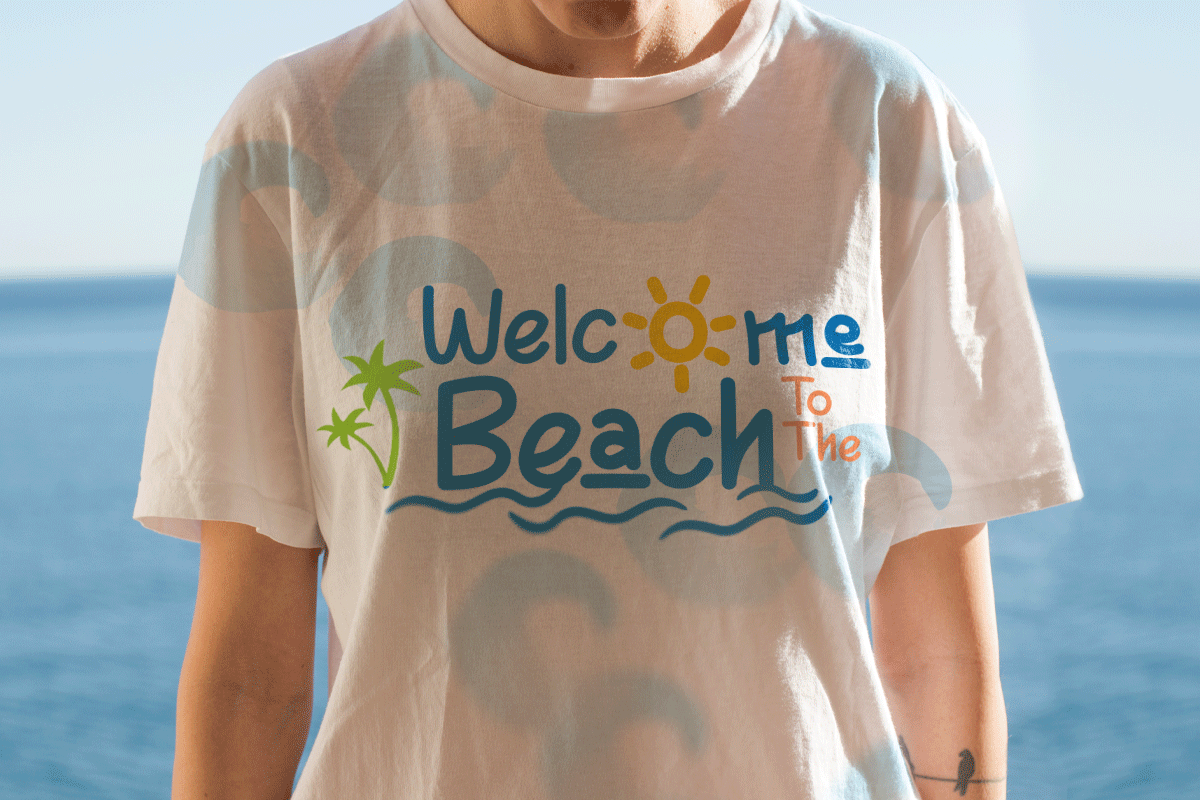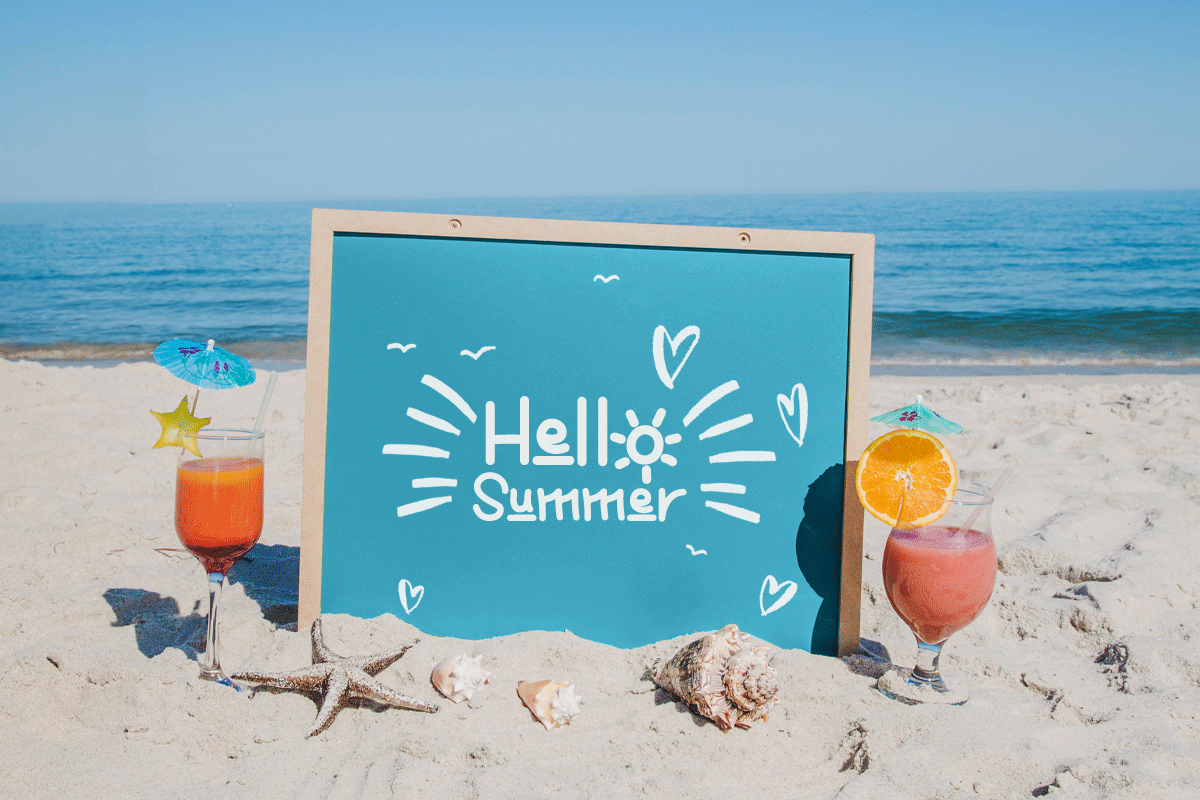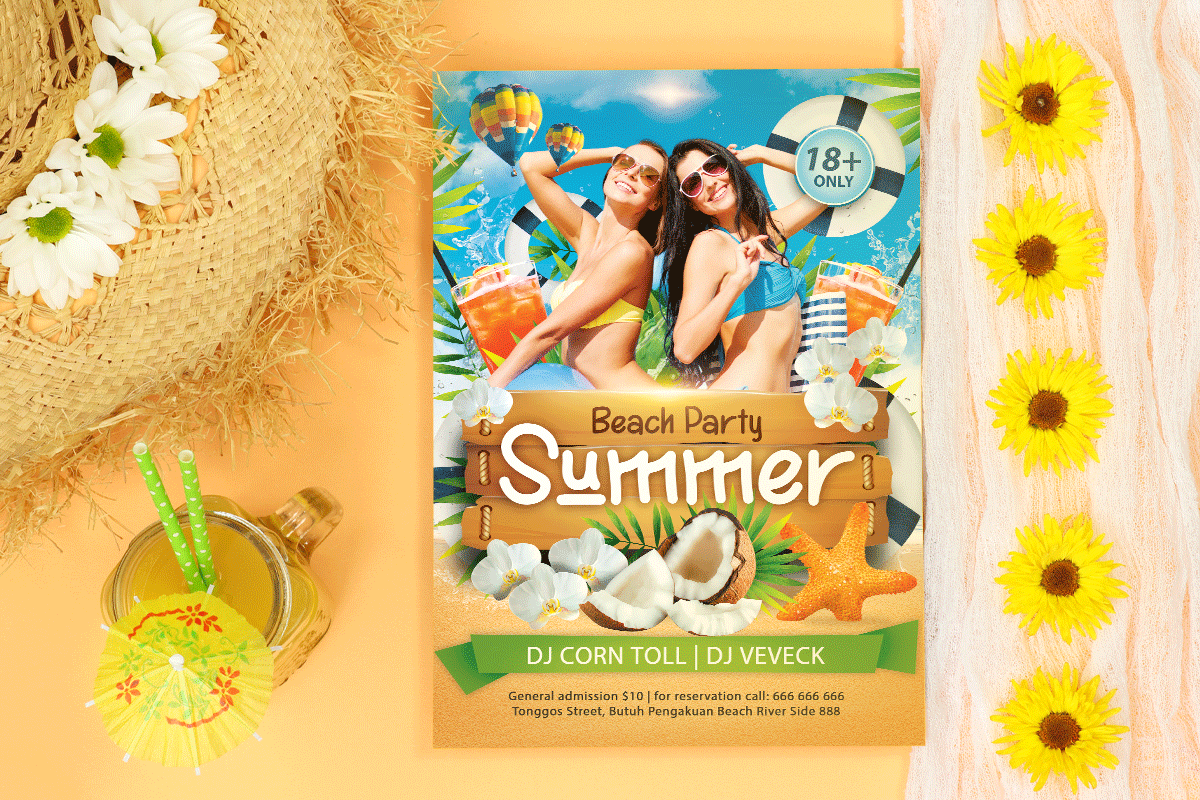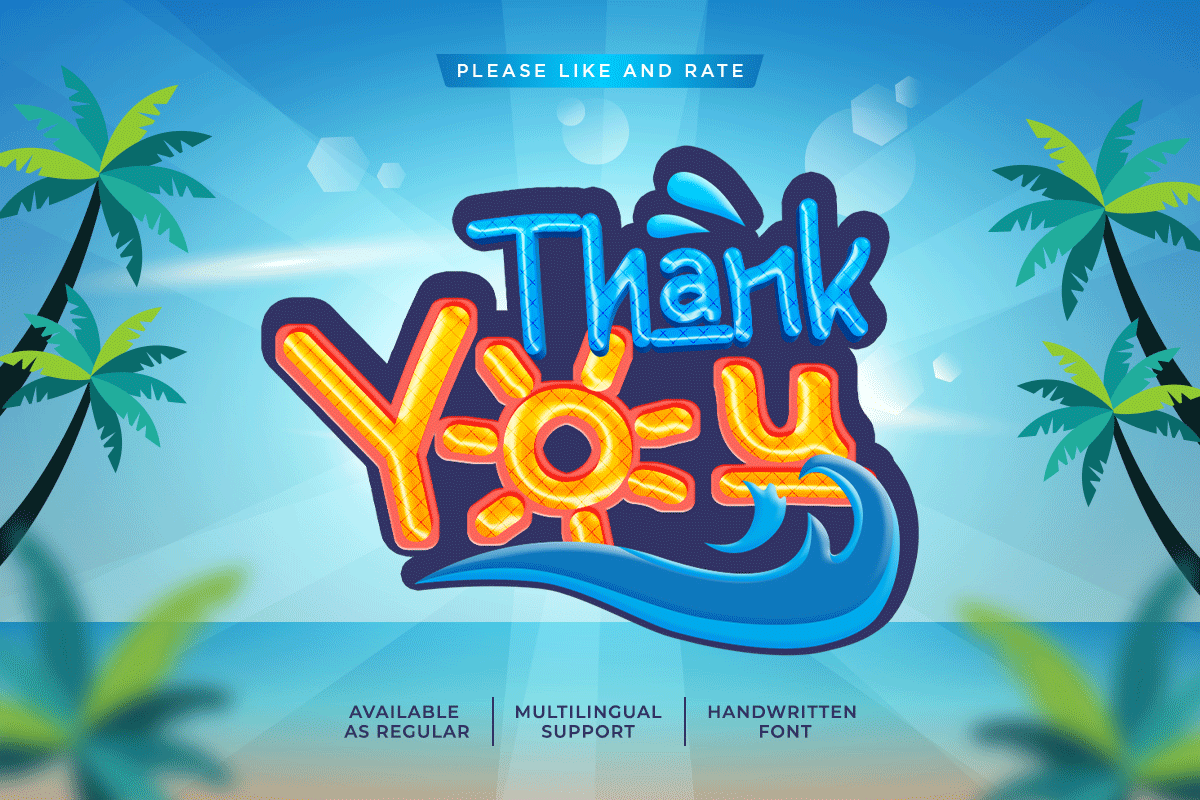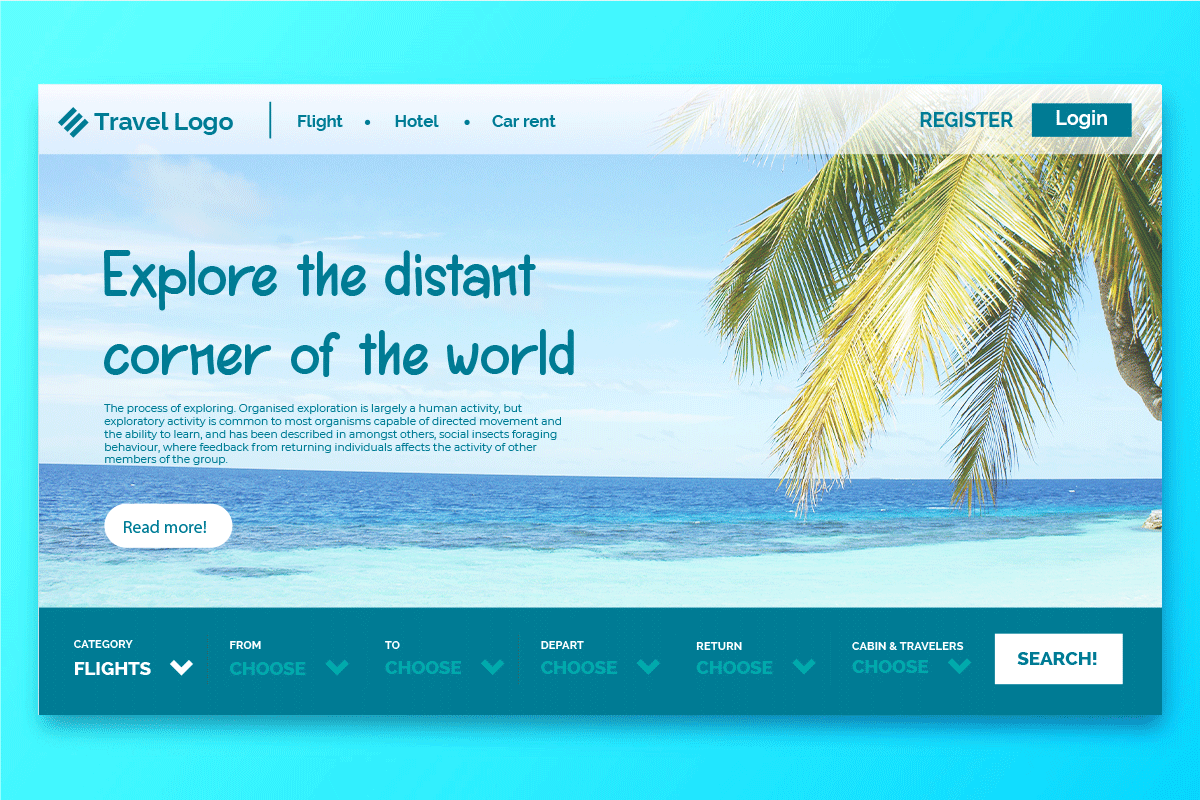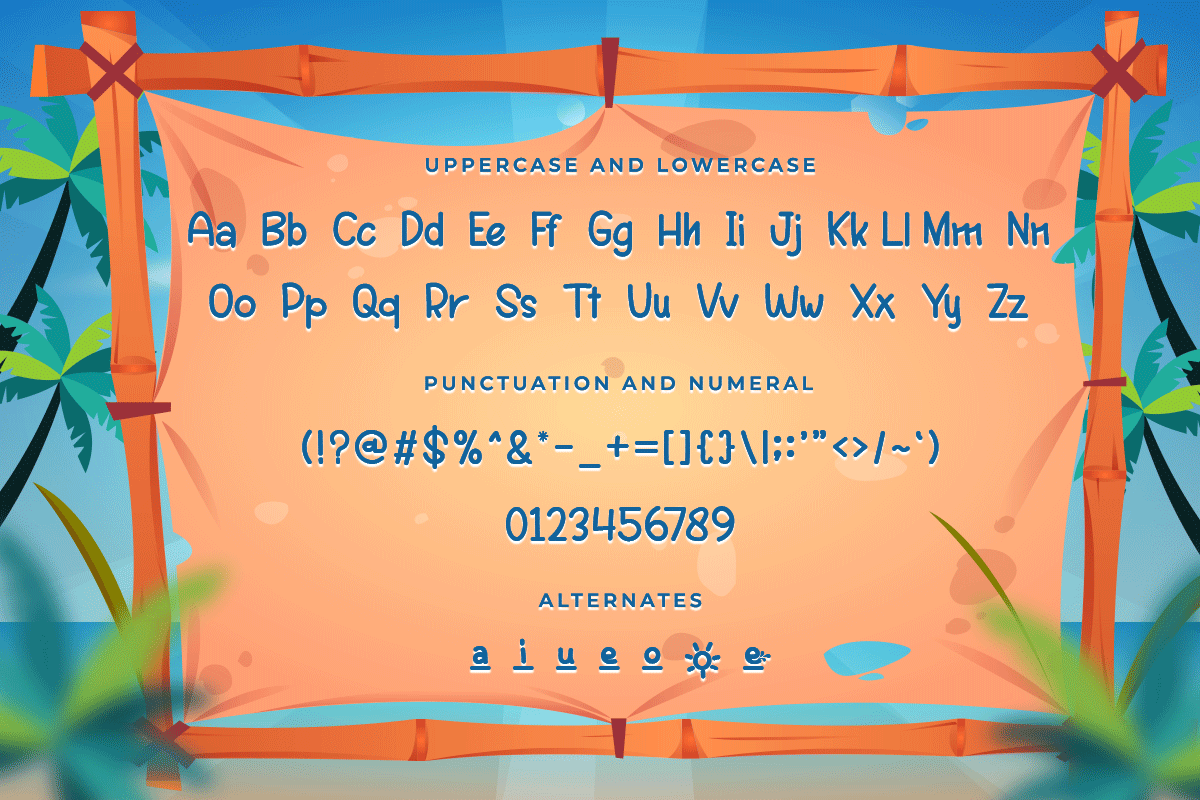
Pop Sunshine Modern Decorative Summer Font Please welcome Pop Sunshine Modern Decorative Summer Font, our fun and decorative font designed for logos and fun activity fonts. Created with simple and modern shapes, the Pop Sunshine Modern Decorative Summer font is our lightweight typeface that embodies fun and colorful characters. This font was created to work well both digitally and in print. This typeface has several characteristics that we can see carefully in its simple and tiny shape. These cute shapes are made to look modern, colorful, and fun. This typeface is the best font to use as a brand name or merchandise related to fashion and leisure equipment. T-shirts and holiday gear work well with this font. The font size can be adjusted according to the items included. This font will be suitable for printing in medium font size. Apart from the uses mentioned above, you can use the Pop Sunshine Modern Decorative Summer font for event posters with a cheerful and colorful theme. This font can use as tickets, banners, and stickers. The unique font design will also attract the attention of readers who see this poster scattered in various places, so they are interested in reading more about the poster's content. Our decorative fonts collection is compatible with Figma fonts, Canva fonts, Freepik Fonts and Adobe Fonts. They also work as Windows Fonts and Apple Fonts. For your social media needs, you can use and install fonts in our collection of Decorative fonts to use as Instagram Fonts, Facebook Fonts, and Twitter Fonts.